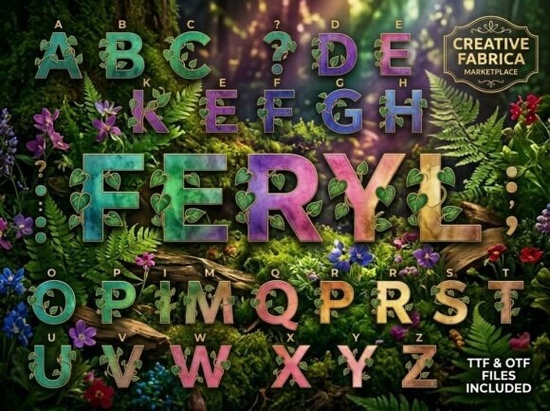
Feryl Font is a unique typeface that brings a sense of magic and nature to any design project. Whether you're working on branding, packaging, or social media content, this font adds an elegant touch that stands out. Its organic feel makes it perfect for creative professionals who want to convey a sense of luxury and whimsy in their work. Feryl Font is especially popular among those who focus on botanical themes, fantasy art, and artisanal products.
The design of Feryl Font is inspired by the beauty of nature. Each letter is crafted with intricate details, featuring bold, high-contrast block serifs that are wrapped in hand-drawn ivy vines and delicate heart-shaped leaves. The overall look is both sophisticated and playful, making it ideal for a wide range of applications. The font’s deep purples, emerald teals, and golden blossoms create a dreamy atmosphere that enhances any visual composition.
For designers looking for a font that can elevate their work, Feryl Font offers a fresh and original alternative. It’s particularly well-suited for independent skincare brands, fantasy book covers, florist logos, and tea packaging. The font’s versatility allows it to be used in both digital and print formats, ensuring that it maintains its quality and impact across different mediums.
What Makes Feryl Font Stand Out?
Feryl Font distinguishes itself through its attention to detail and artistic expression. Unlike many other decorative fonts, it doesn’t rely on simple embellishments. Instead, it integrates natural elements seamlessly into the typography, creating a cohesive and visually engaging design. This level of craftsmanship is what makes it a favorite among creative professionals who value uniqueness and quality.
One of the key features of Feryl Font is its ability to convey a sense of storytelling. The intricate vines and leaves add a narrative element to any text, making it perfect for projects that require a more personal or imaginative touch. Whether you’re designing a logo or a social media post, the font helps to communicate a specific mood or theme effectively.
Best Uses for Feryl Font
There are several ways to use Feryl Font depending on your creative goals. For example, if you're working on a botanical skincare brand, the font can help reinforce the natural and luxurious aspects of the product. Similarly, for fantasy book jackets, it adds a magical and immersive feel that captures the reader's attention.
- Botanical skincare branding
- Fantasy book jacket headers
- Luxury florist logos
- Organic artisan tea packaging
- High-impact social media titles
If you're a print-on-demand seller or a small business owner, Feryl Font can help you create eye-catching designs that stand out in a competitive market. Its distinctive style ensures that your work feels fresh and original, which can make a big difference in how your brand is perceived.
How to Use Feryl Font in Your Projects
Using Feryl Font is straightforward, but there are a few tips that can help you get the most out of it. First, consider the context in which you’ll be using the font. While it works well as a display typeface, it may not be suitable for long blocks of text. Instead, use it for headings, titles, or focal points in your design.
Another consideration is the background. Since the font has a rich, detailed appearance, it pairs best with clean or minimalist backgrounds that allow it to shine. You can also experiment with different color schemes to see how the font interacts with various tones and shades.
If you're new to using decorative fonts, start by testing Feryl Font in a few different projects. This will help you understand its strengths and limitations, allowing you to use it more effectively in future designs.
Whether you're a designer, crafter, or small business owner, Feryl Font provides a unique way to express creativity and style. Its blend of elegance and nature-inspired details makes it a valuable addition to any design collection.
Before finalizing your project, take a moment to review how Feryl Font looks in different sizes and formats. This will ensure that it meets your expectations and delivers the desired impact. With the right approach, this font can become a powerful tool in your creative process.